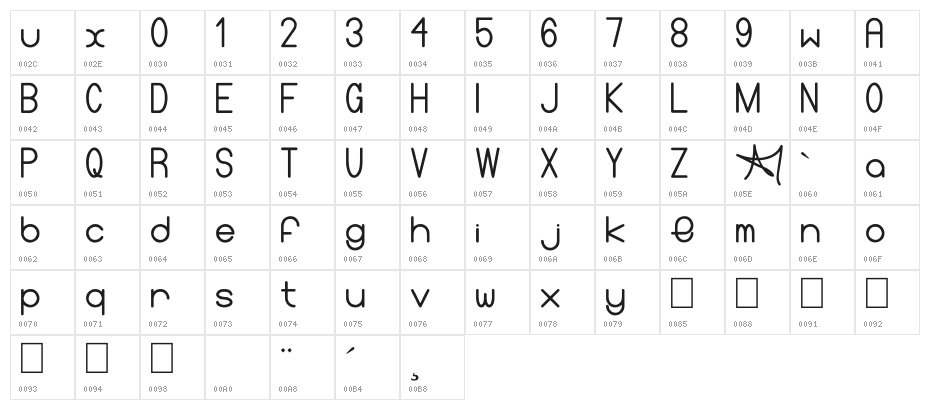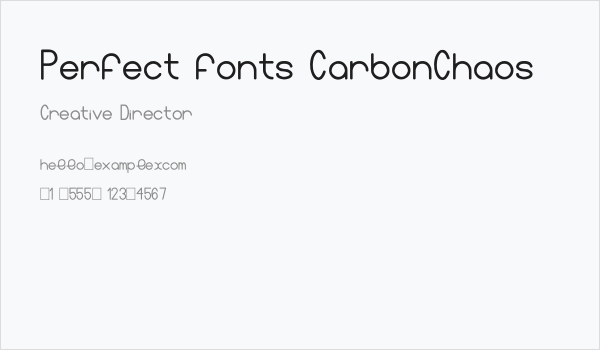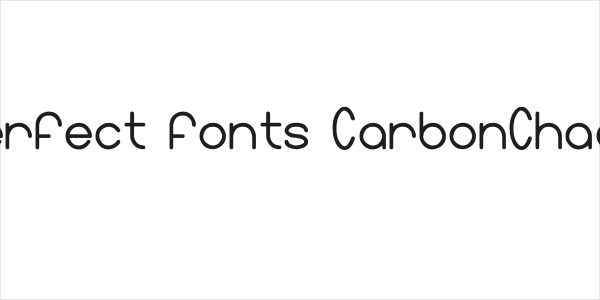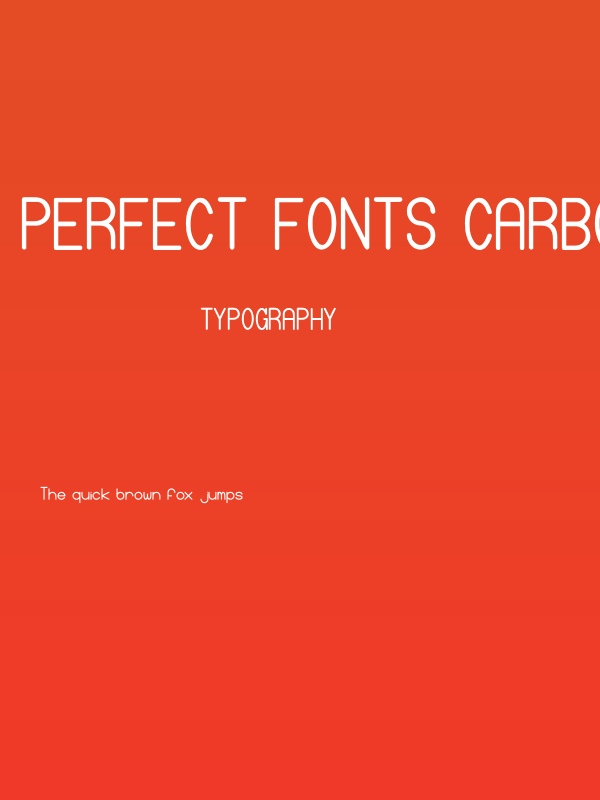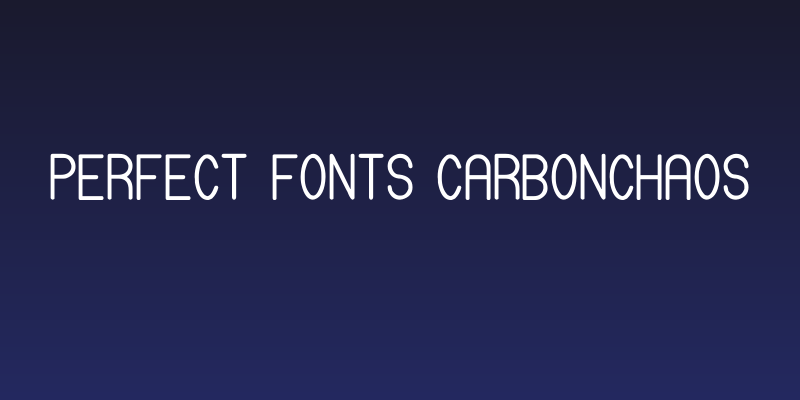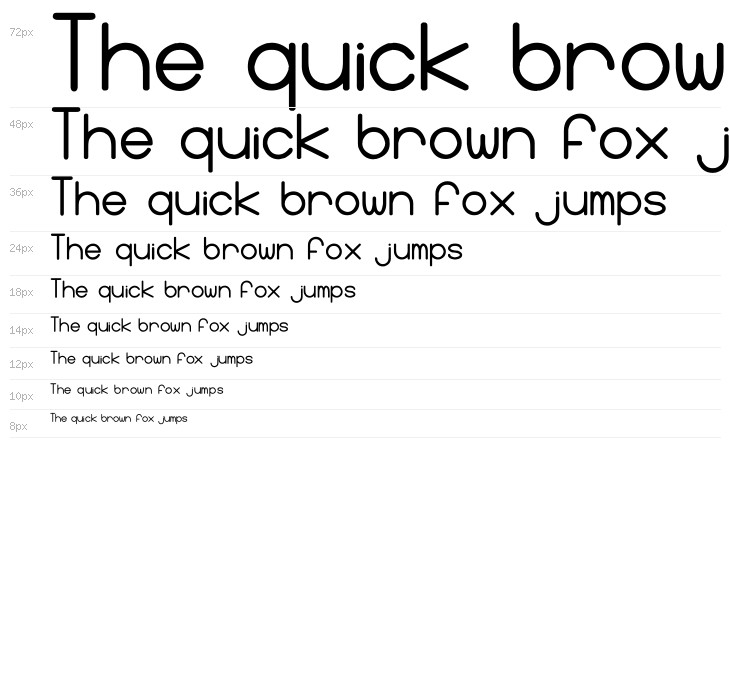
Perfect fonts CarbonChaos Font
Perfect fonts CarbonChaos Description
This font features a playful and modern design with rounded edges and a consistent stroke width. The characters are slightly elongated, giving a unique and approachable appearance. The uppercase letters maintain a uniform height, while the lowercase letters exhibit a gentle curve, enhancing readability. Numbers are bold and clear, making them stand out effectively. Special characters are designed with the same rounded style, ensuring cohesion across all elements. This font's simplicity and charm make it versatile for various design needs.
| Use Case | Headlines, Logos, Casual Text |
| Proposed Projects | Ideal for children's books, playful branding, casual invitations, and modern web design. |